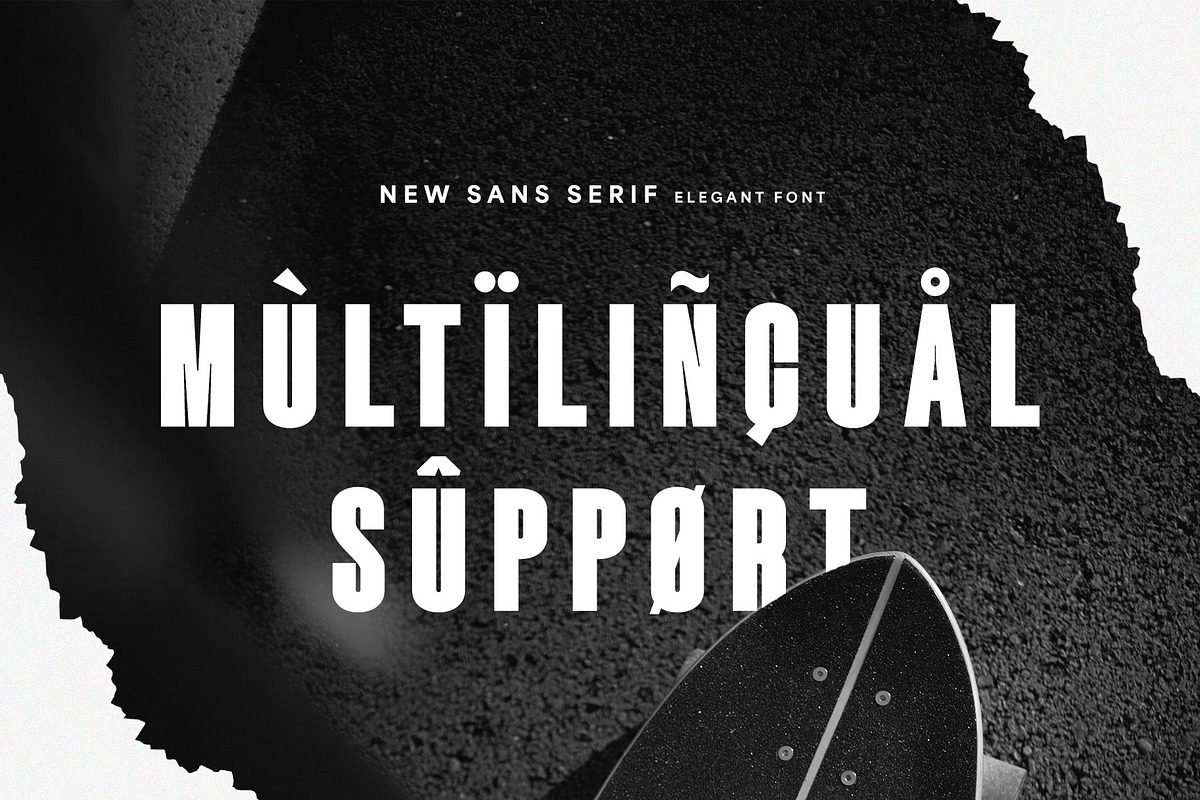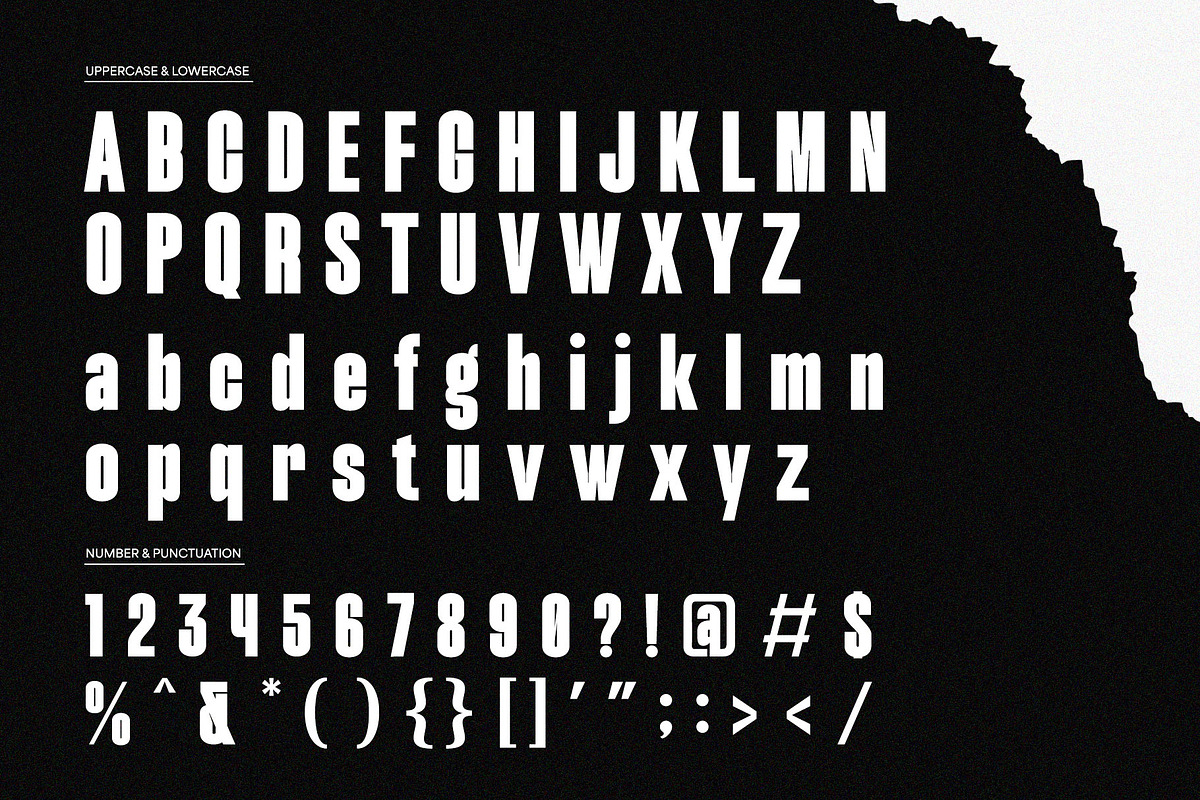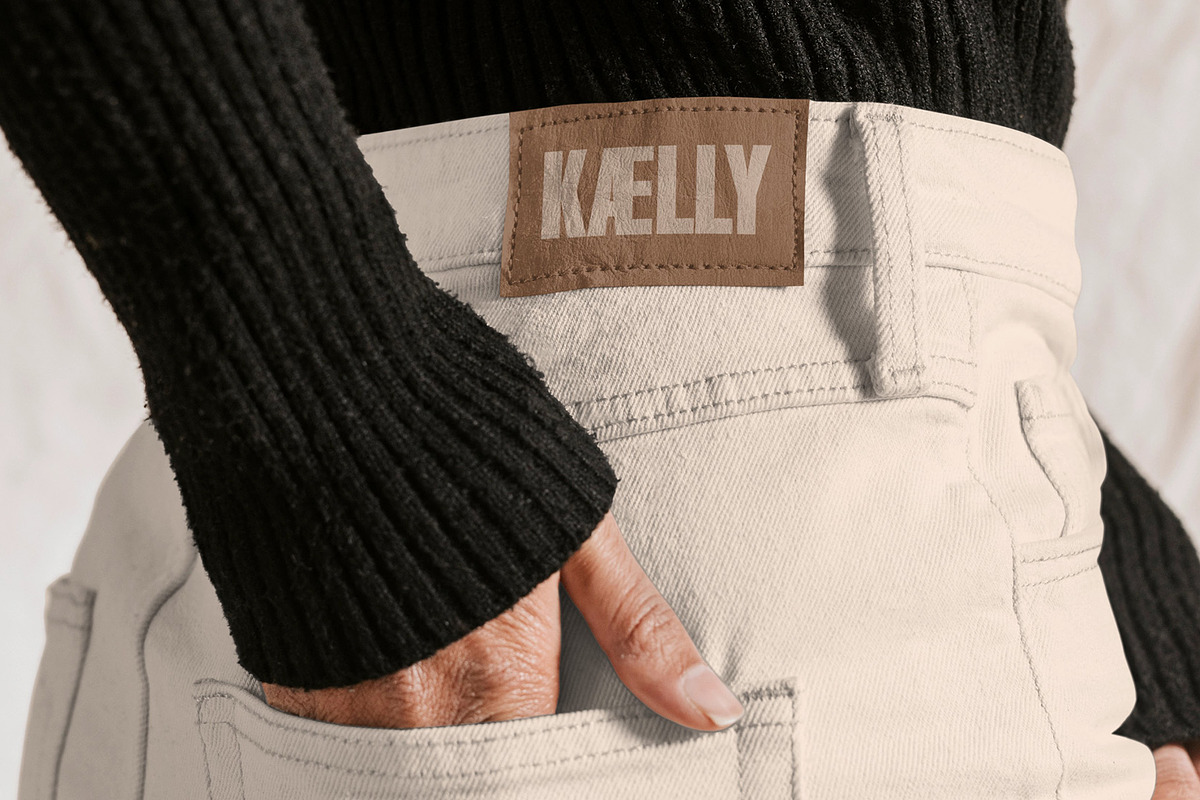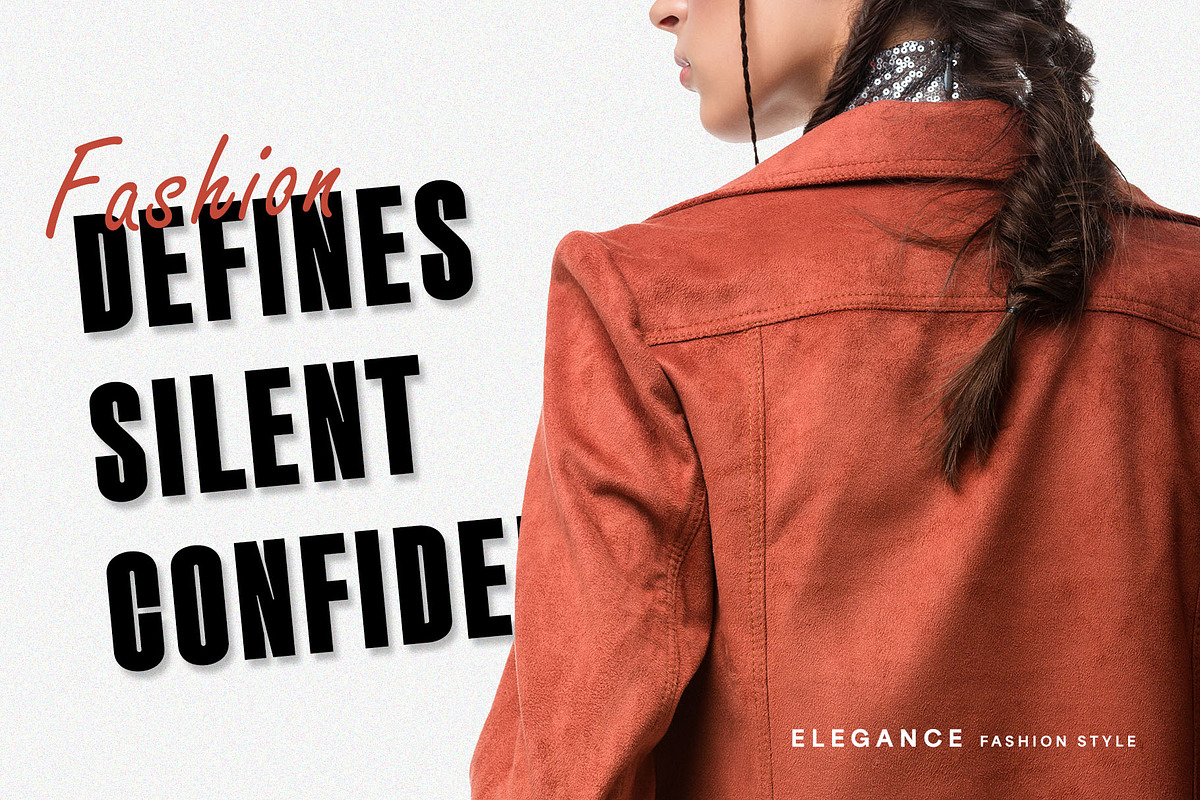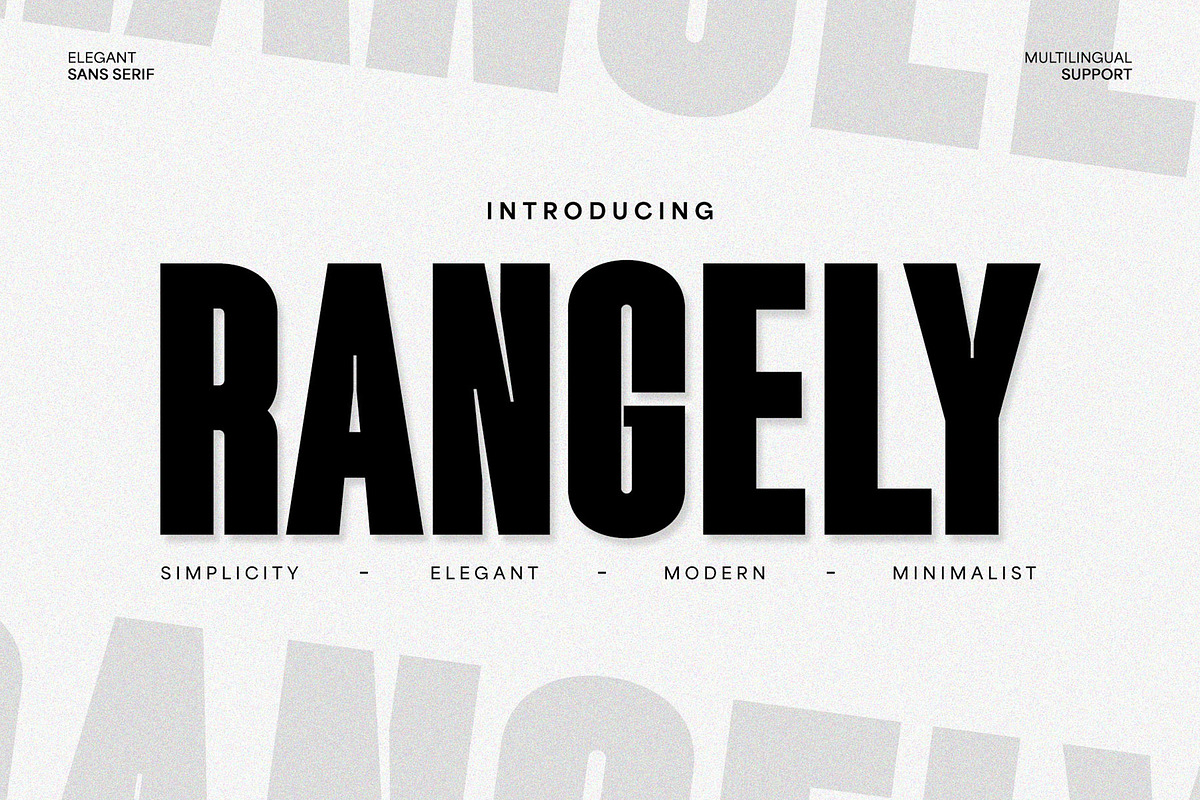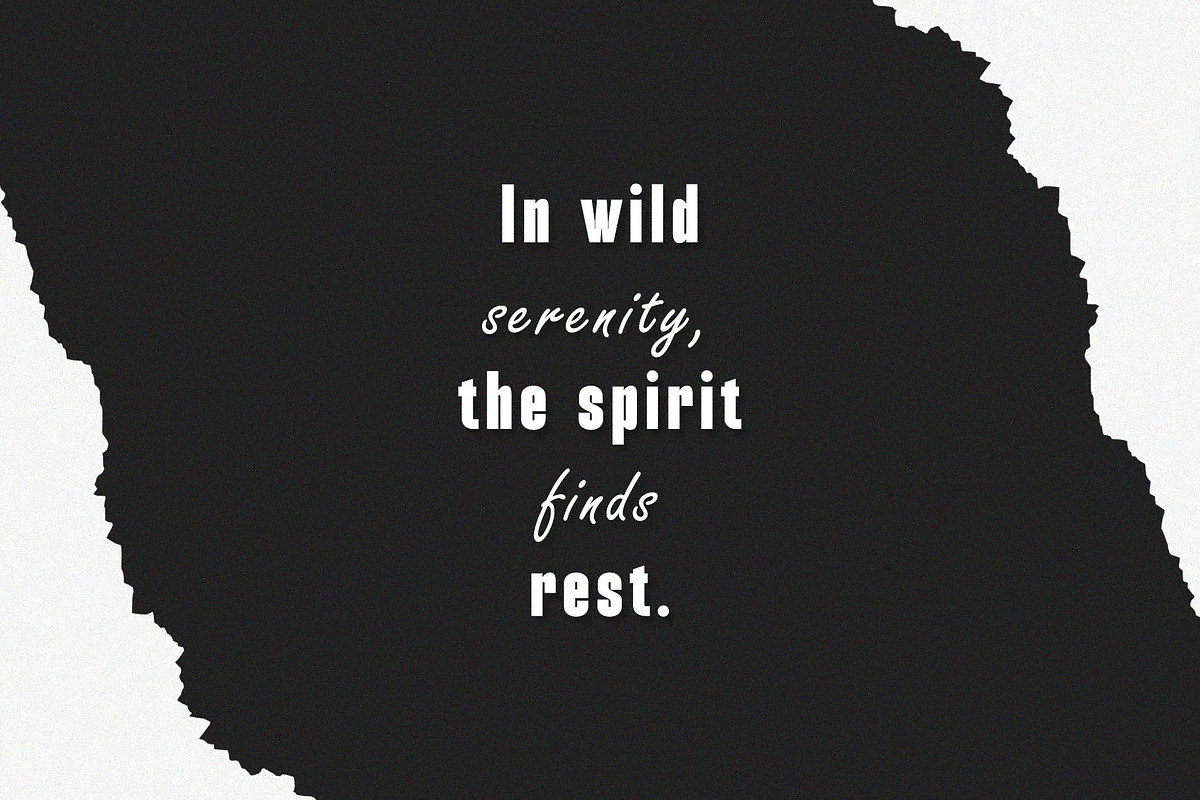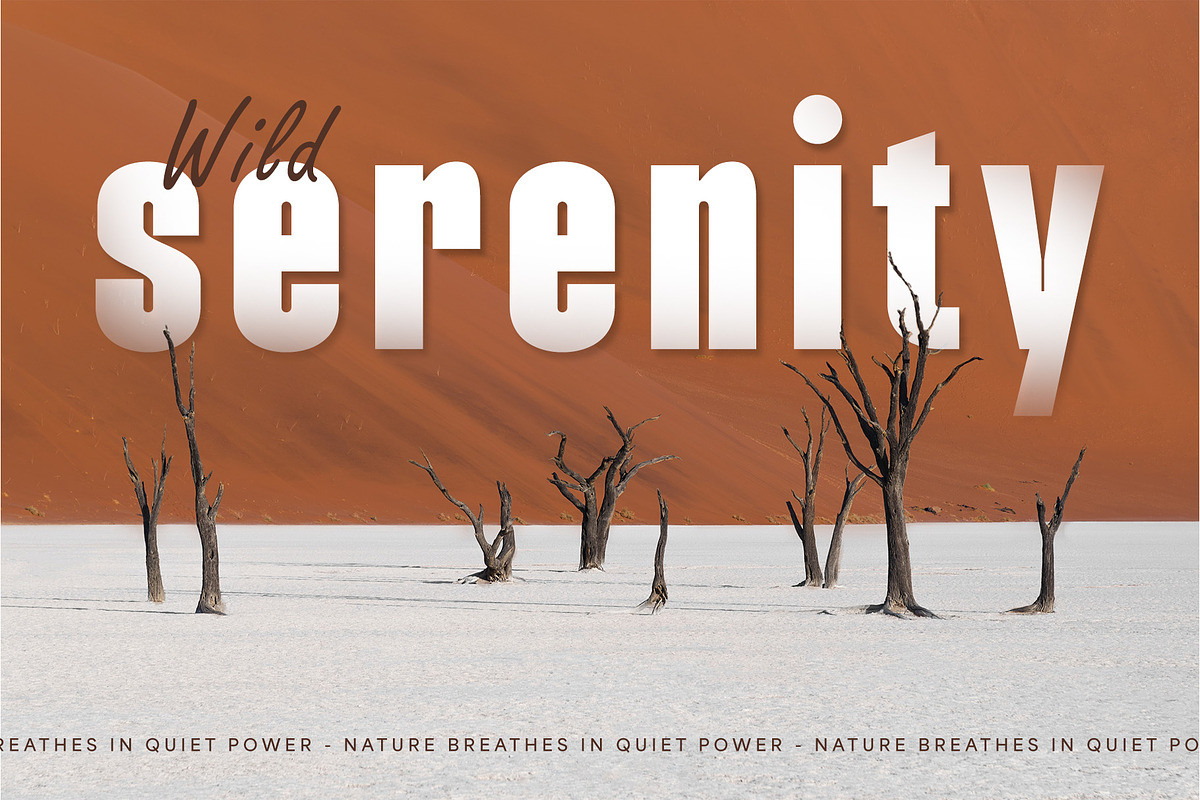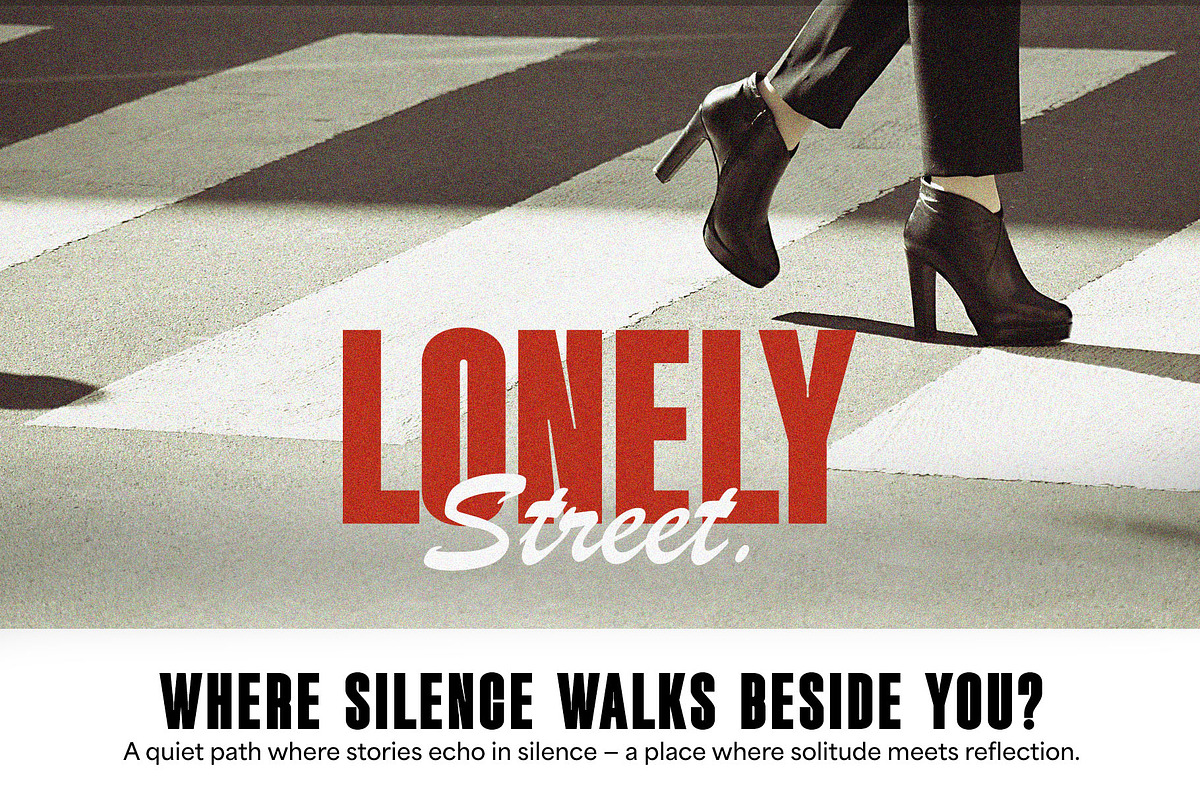
Rangely - Modern Bold Sans
Elevate your designs with Rangely, a sophisticated display serif font that masterfully blends classic charm with contemporary minimalism. Crafted for impact and readability, Rangely exudes a strong yet refined presence, making it ideal for branding, headlines, editorial design, and striking visual communications. Its clean lines and balanced proportions embody simplicity, elegance, and a modern aesthetic, ensuring your message is delivered with undeniable style. With multilingual support, Rangely is a versatile choice for designers seeking a font that is both powerful and polished.
- Numerial